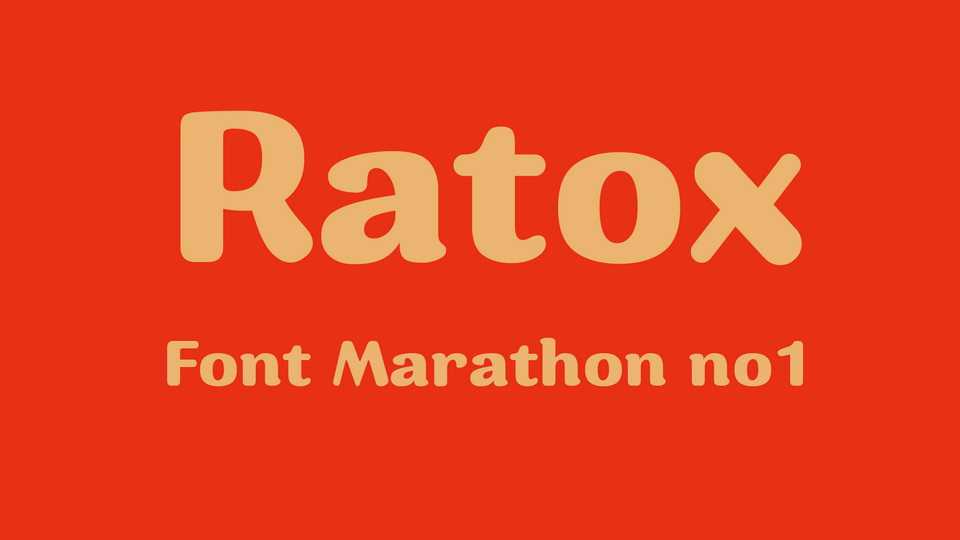
Download Ratox font, a thick lettered and adaptable display font. Ratox font reads as strong, confident, and dynamic and can add tons of nostalgic character to your designs.
Designer: Tzu-yuan Yin